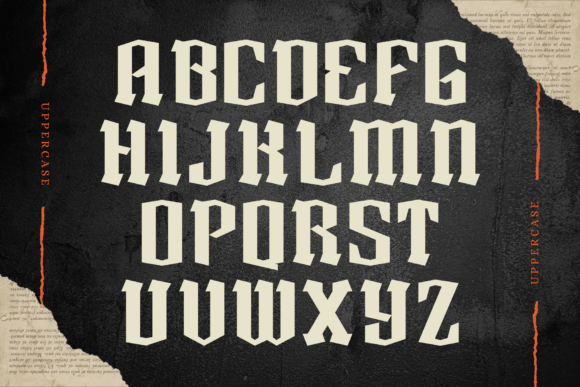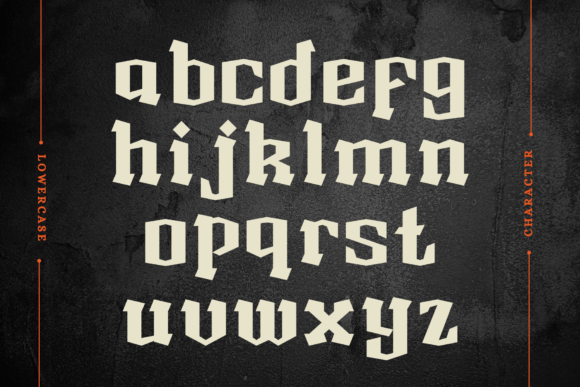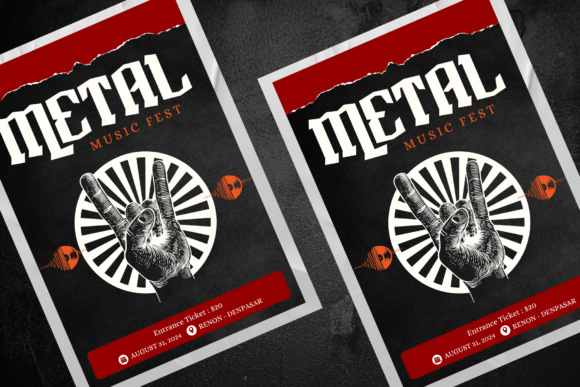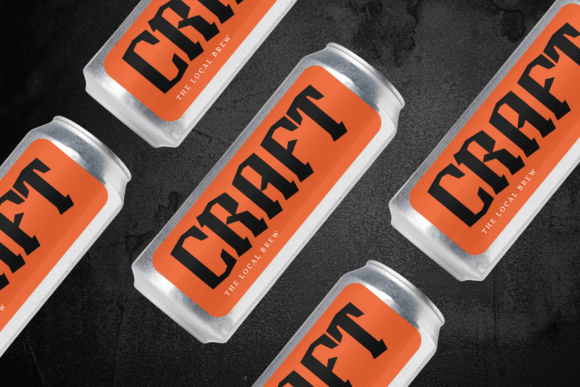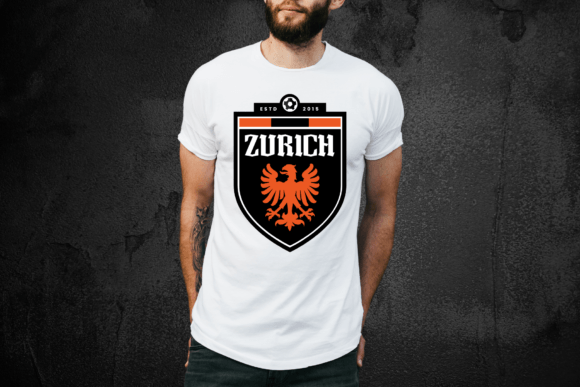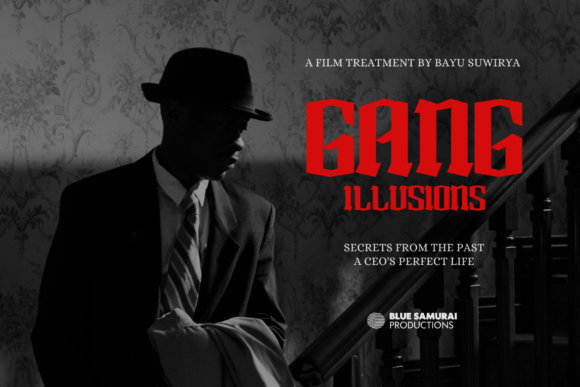
Amoera Font: A Timeless Gothic Typeface for Modern Design
In the realm of typography, few fonts evoke the mystique and grandeur of medieval script as effectively as Amoera Font. This simple yet modern gothic typeface is an exemplary blend of classic elegance and contemporary design sensibilities, making it a versatile choice for a wide array of creative projects. From logos and branding to social media posts, advertisements, and product designs, Amoera Font brings a touch of historical richness and aesthetic harmony that is hard to match.
The Essence of Amoera Font
Amoera Font is characterized by its dramatic and ornate appearance, which is primarily attributed to its sharp, angular lines and rich, dark strokes. These features not only lend the font its distinctive gothic charm but also convey a sense of history and tradition. The meticulous design of Amoera ensures that it maintains readability while imparting a luxurious feel to any design it is part of. This balance between form and function makes Amoera a go-to choice for designers looking to infuse their work with a sense of sophistication and timelessness.
Inspiration from Medieval Script
The inspiration for Amoera Font is deeply rooted in classic medieval script, a period known for its significant contributions to the evolution of typography. During this era, scribes and craftsmen poured their skill and creativity into creating manuscripts that were not only repositories of knowledge but also works of art. The ornate decorations, the meticulous attention to detail, and the overall aesthetic appeal of these medieval texts have influenced the design of Amoera Font. By drawing from this rich historical context, Amoera manages to evoke a sense of nostalgia and reverence, making it particularly appealing for projects that aim to communicate tradition, reliability, and heritage.
One of the standout qualities of Amoera Font is its versatility. Its unique blend of medieval charm and modern simplicity makes it suitable for a variety of design applications. For branding and logos, Amoera offers a distinctive character that can help businesses stand out, particularly those in industries such as luxury goods, fashion, and hospitality, where conveying a sense of tradition and quality is crucial. In digital spaces like social media and online advertising, Amoera’s clear readability and striking appearance ensure that messages are delivered with impact. Moreover, for product designs, especially those that are handmade or craft-oriented, Amoera adds an element of authenticity and craftsmanship.
Why Choose Amoera Font?
Choosing Amoera Font for a design project comes with several advantages. Firstly, its unique aesthetic ensures that the project stands out in a crowded design landscape. Secondly, the font’s historical roots and the sense of tradition it conveys can be a powerful tool for brands looking to establish a strong identity. Finally, Amoera’s legibility and versatility make it easy to use across various platforms and applications, from digital media to print.
Amoera Font represents a perfect marriage of historical inspiration and modern design sensibility. Its dramatic and ornate look, coupled with its sharp, angular lines and rich strokes, makes it a compelling choice for designers and crafters looking to add depth and character to their work. Whether you’re working on a branding project, a digital campaign, or a product design, Amoera Font offers a timeless elegance and typographic harmony that can elevate your creations to new heights.
Incorporating Amoera Font into your design repertoire can open up new avenues for creative expression and help you connect with audiences in a meaningful way. With its blend of medieval charm and contemporary appeal, Amoera is not just a font but a design statement that speaks of tradition, quality, and enduring style.